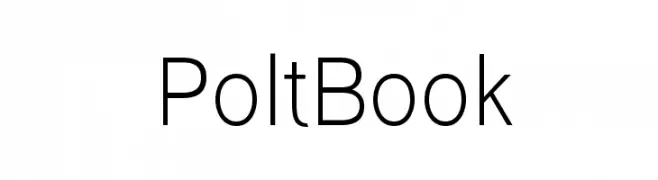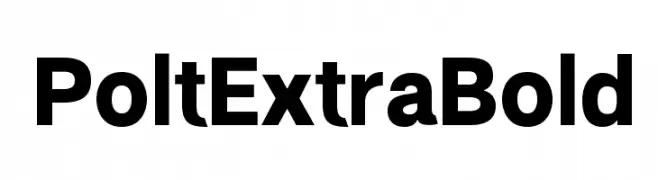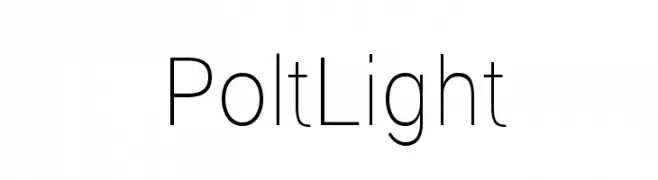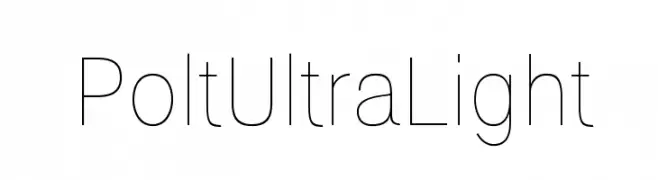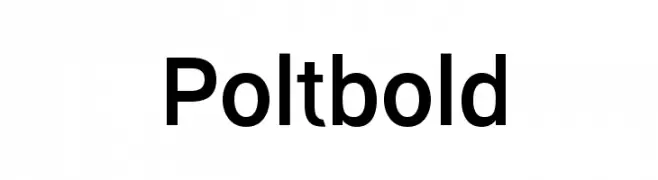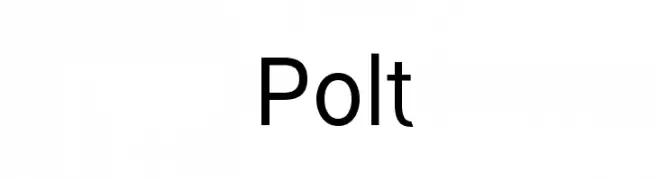
( Ariel Alvares )
A modern, geometric sans-serif font with uniform stroke widths.
( Ariel Alvares )
A bold, modern font with thick, uniform strokes and a geometric structure.
( Ariel Alvares )
A bold, modern sans-serif font with a clean and approachable design.
( Ariel Alvares )
A clean, modern sans-serif font with uniform stroke width and excellent readability.
( Ariel Alvares )
A bold, modern sans-serif font with strong, clean lines.
( Ariel Alvares )
A modern, light sans-serif font with clean lines and excellent legibility.
( Ariel Alvares )
A sleek, ultra-light font with a modern and minimalist design.